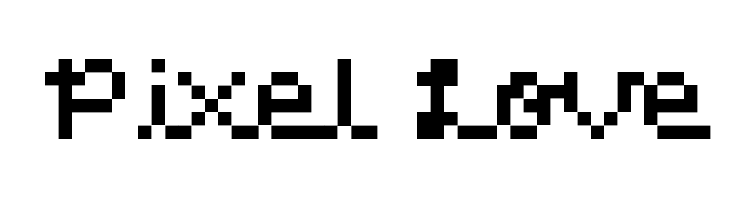
A playful, jagged font with a hand-drawn, whimsical style.
A bold, italicized font with a 3D effect and dotted texture.
A playful, hand-drawn font with bold, sketch-like characters.
A collection of whimsical and playful doodles, each with a unique, hand-drawn illustration.
A playful, hand-drawn style font with bold, irregular characters and a whimsical flair.
A bold, geometric font with a modern, futuristic aesthetic.
A bold, geometric font with a futuristic and angular design.
A bold, italicized font with a modern and dynamic style.
A bold, geometric font with a futuristic and industrial aesthetic.
A bold, textured, hand-drawn font with a rugged, organic style.
A playful, bold, and hand-drawn style font with rounded, irregular characters.
An elegant and flowing script font with smooth, cursive strokes.
A modern, light sans-serif font with geometric precision and minimalist design.
A bold, handwritten font with a playful and energetic style.
A meme-inspired decorative font using hand-drawn internet meme faces as glyphs.
A bold, flowing script font with a modern, playful aesthetic.
A bold, fragmented font with a shattered, decorative style.
A decorative font with St. Patrick's Day-themed frames and festive designs.
A bold, angular font with a futuristic and dynamic style.
A bold, playful font with rounded, cartoonish characters.
A pixelated, retro font inspired by early digital displays.
A hand-drawn, playful font with tall, narrow characters and a casual aesthetic.
A bold, futuristic font with geometric and angular design.